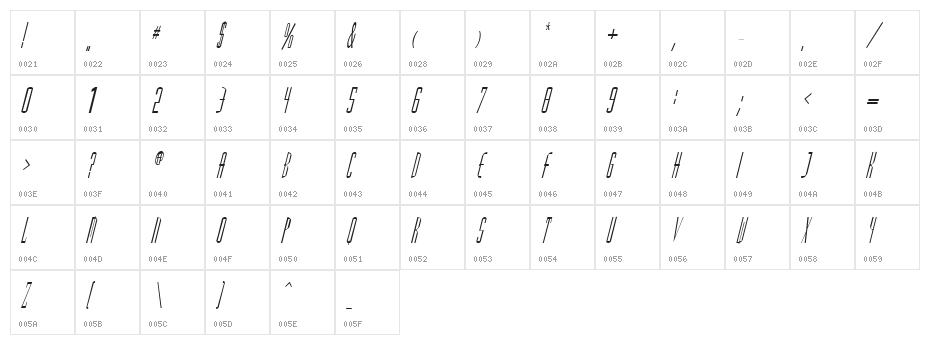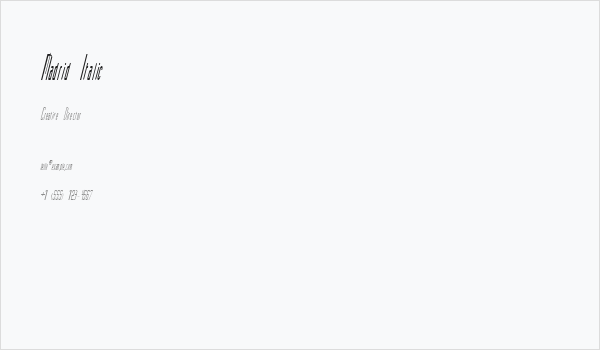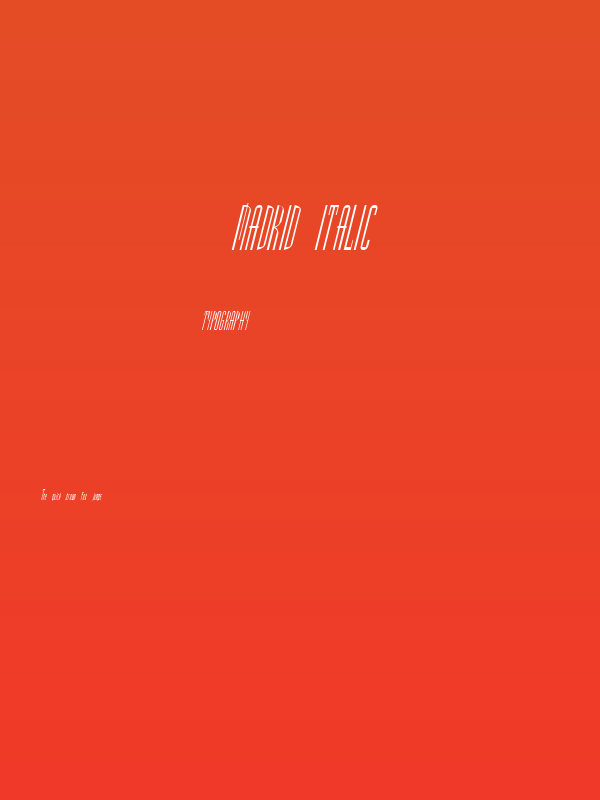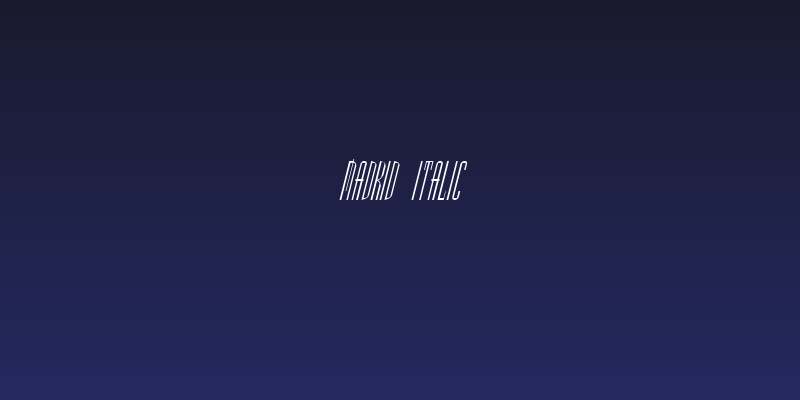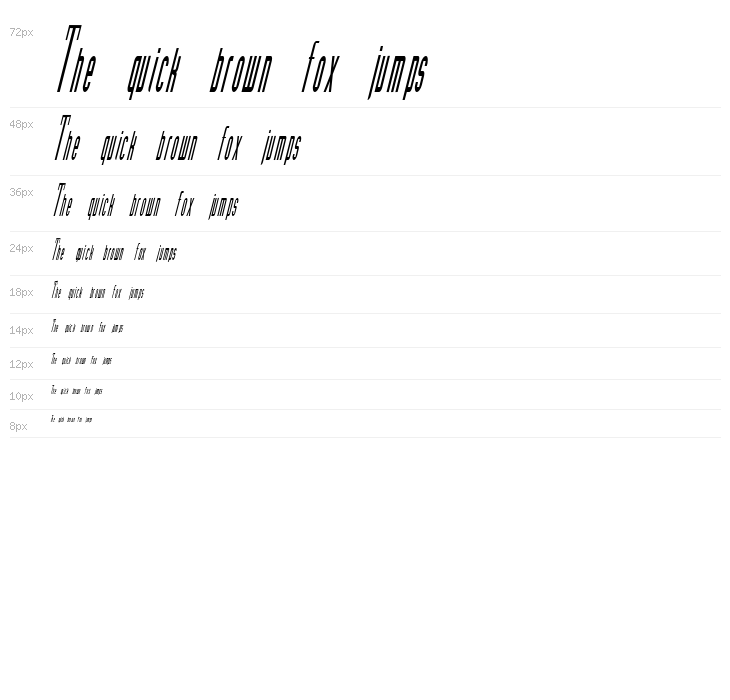
Madrid Italic Font
Madrid Italic Description
This font features a sleek, italicized style with elongated, narrow characters that convey a sense of motion and elegance. The uppercase letters are tall and slender, with a distinct slant that adds a dynamic quality. The lowercase letters maintain this slant, offering a cohesive look across the alphabet. Numbers are similarly styled, with a consistent height and narrow width that complements the letters. Special characters are designed with the same attention to detail, ensuring they fit seamlessly with the rest of the font. The overall appearance is modern and stylish, making it suitable for projects that require a touch of sophistication.
| Proposed Projects | Ideal for fashion magazines, luxury branding, and modern advertising campaigns. |